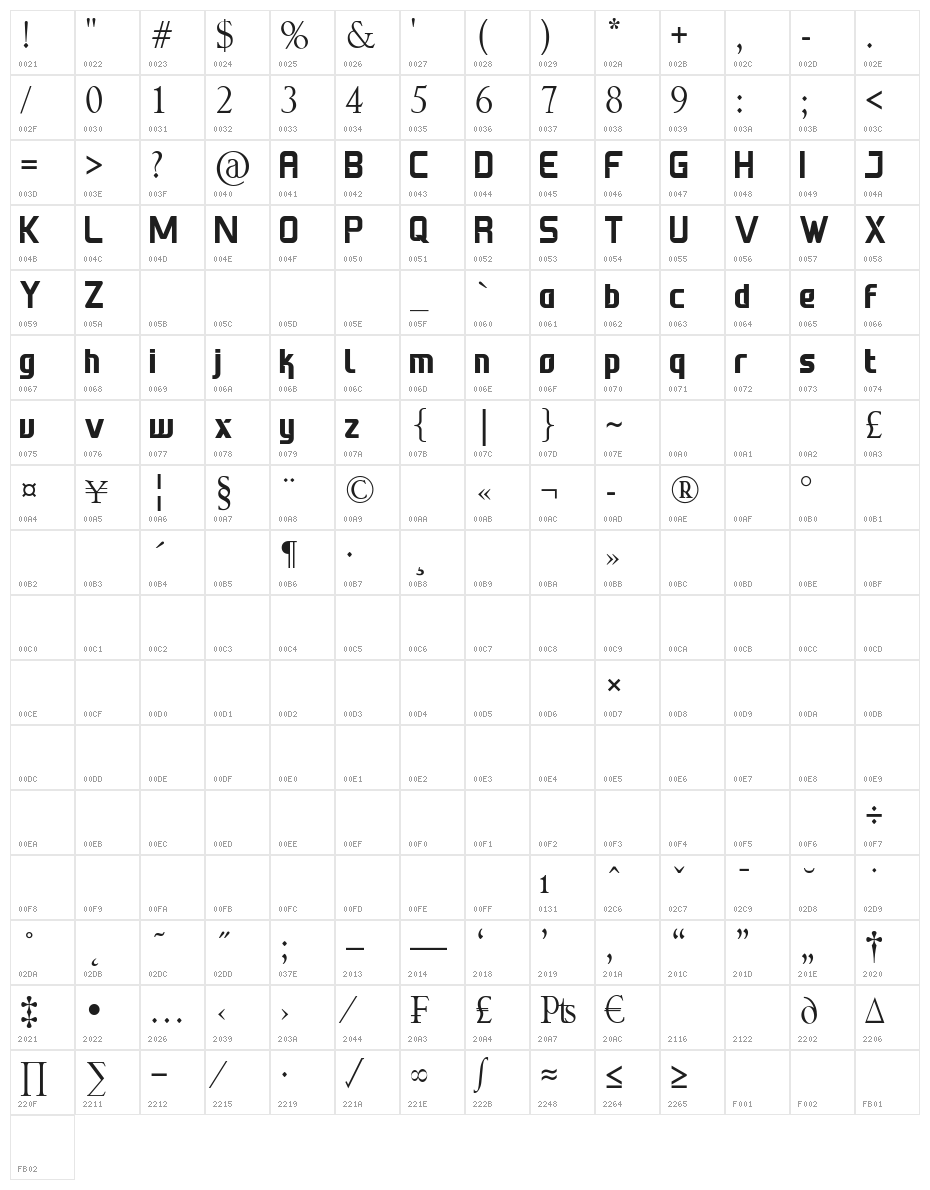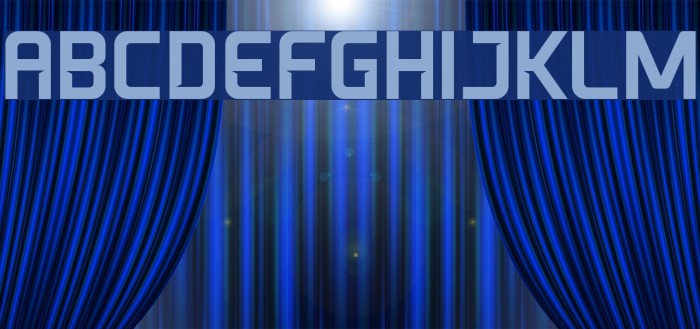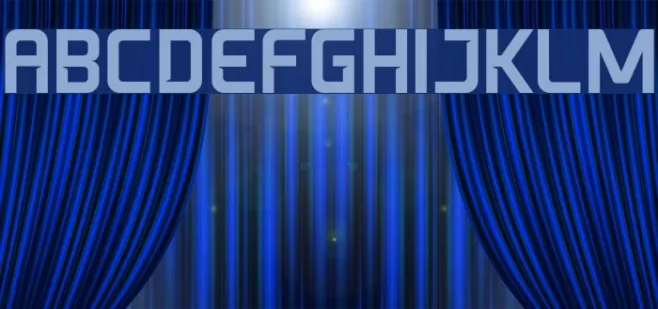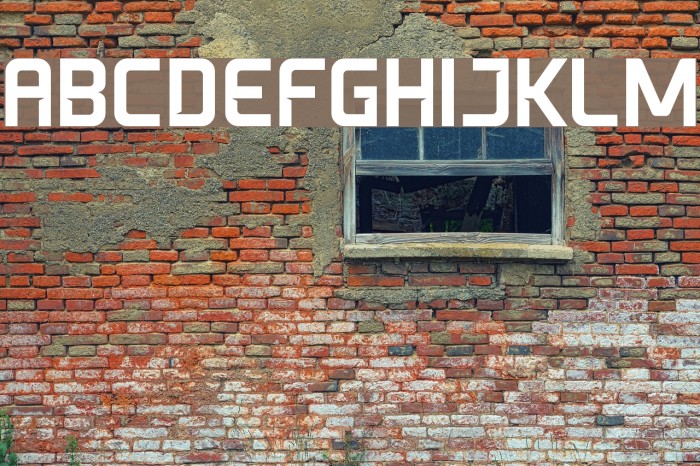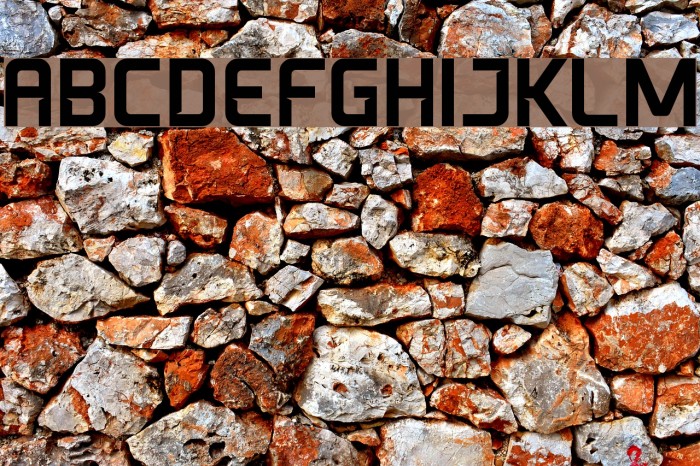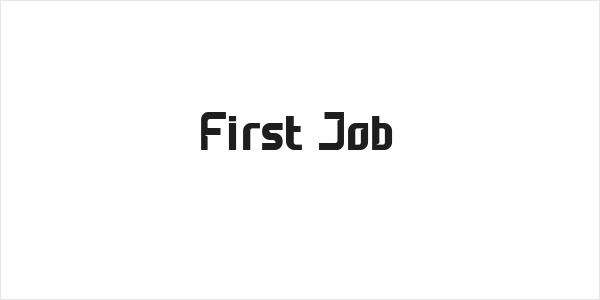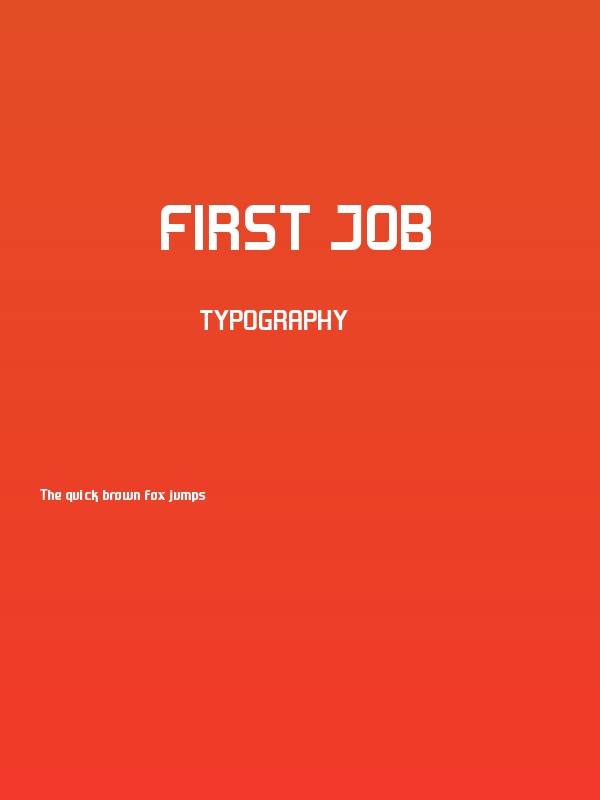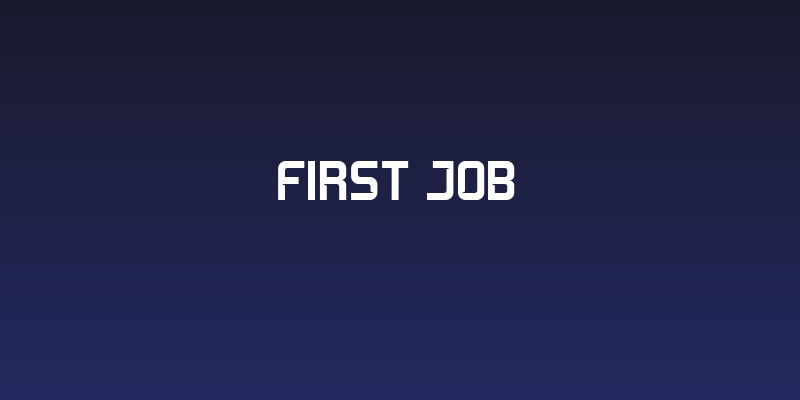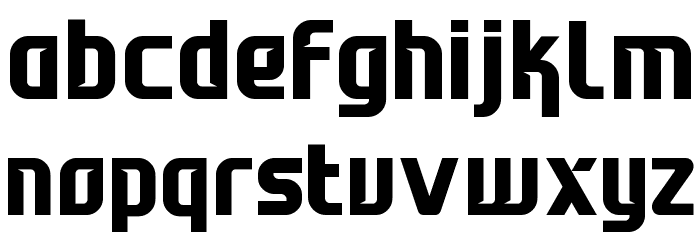
First Job Font
First Job Description
This font features a bold and modern design with a strong geometric influence. The uppercase letters are characterized by their blocky, angular shapes, while the lowercase letters maintain a consistent style with slightly softer curves. The numerals are clear and easy to read, making them suitable for a variety of applications. Special characters are well-integrated, maintaining the overall aesthetic of the font. The font's structure is robust, making it ideal for impactful headlines and logos. Its clean lines and contemporary feel make it versatile for both digital and print media.
Nurf Designs
| Proposed Projects | This font is perfect for branding projects, logo design, advertising, and editorial headlines. Its bold presence makes it suitable for posters and digital media where a strong visual impact is needed. |